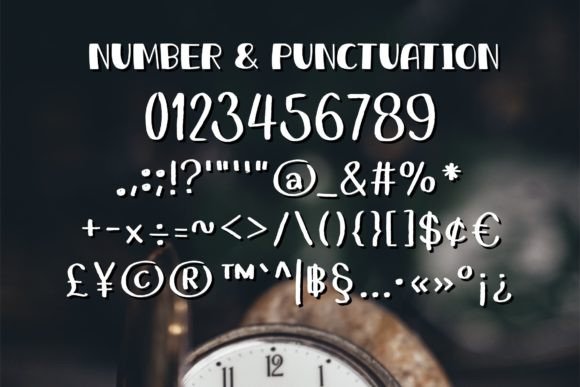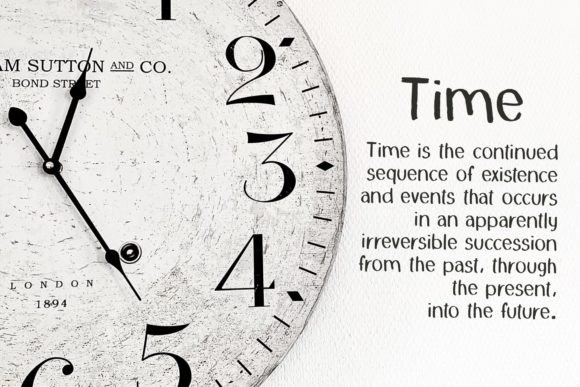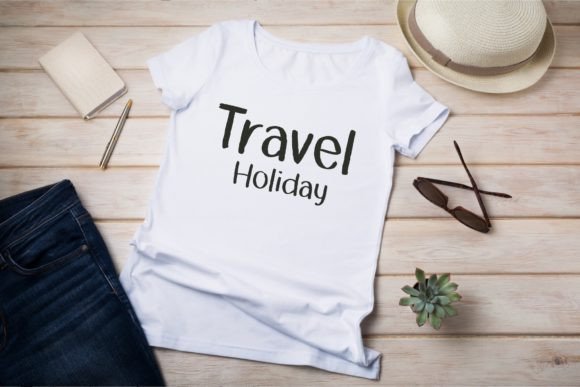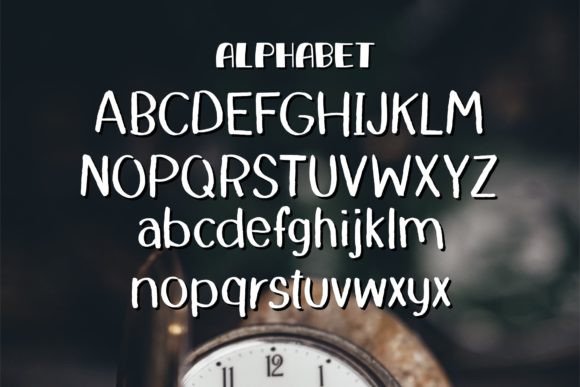
When Creativity Strikes
Have you ever been in the middle of a project and suddenly had an idea pop into your head that you just can’t wait to bring to life? The excitement of brainstorming and the thrill of creation can be exhilarating. It’s moments like these that make us remember why we love being designers.
Whether you’re working on a new logo, branding, or crafting a social media campaign, the right font can make all the difference. That’s where Buy Some Time Font comes in – a charming, handwritten font that’s perfect for adding a touch of whimsy to your designs. With its casual, fun feel, it’s the ideal choice for designers looking to add a little personality to their projects.
Key Features of “Buy Some Time Font”
- Unique Characteristics: The font features a unique blend of modern and vintage elements, with clean lines, geometric shapes, and subtle texture, making it perfect for creating a distinctive visual identity.
Buy Some Time Font Review
I’ve had the chance to work with the Buy Some Time font, and I must say it’s a unique and interesting addition to any design project. ✨ The font’s irregular shapes and letterforms give it a quirky, hand-drawn feel that can add a touch of personality to your work.
Some of the things that work well with Buy Some Time include:
- ✨ Unconventional letterforms that add visual interest
- ✨ Good for creating a sense of movement and energy
- ✨ Can be used to create a sense of nostalgia or retro feel
- ⚠️ May not be suitable for large blocks of text due to its irregular shape and size
- ⚠️ Can be difficult to read at small font sizes
- ⚠️ May not be compatible with all font rendering systems
Overall, I think Buy Some Time font is a great choice for designers looking to add some personality and flair to their work. While it may have some limitations, it’s a great option for titles, headings, and other short text elements where its unique feel can really shine through.
Tips for Getting the Most Out of “Buy Some Time Font”
To get the most out of “Buy Some Time Font”, use it to create eye-catching headlines and titles. Pair it with bold colors and simple backgrounds to create a striking visual effect.
“Buy Some Time Font” is commonly used in:
- Marketing materials, such as brochures and flyers.
- Social media posts and ads.
- Web design and development projects.
Alternatives to “Buy Some Time Font” for Designers
Playfair Display is an elegant, high-end serif font ideal for creating luxurious and sophisticated designs. It’s perfect for wedding invitations, luxury branding, and high-end magazines.
Compared to Buy Some Time Font, Playfair Display has a more refined and classic feel, whereas Buy Some Time Font has a more modern and distressed look.
Great Vibes is a beautiful, modern script font suitable for creative and artistic projects. It’s great for designing logos, posters, and social media graphics.
Unlike Buy Some Time Font, Great Vibes has a more fluid and handwritten feel, making it perfect for projects that require a personal touch.
Pacifico is a modern script font with a relaxed and casual feel. It’s ideal for designing beach-themed projects, food menus, and outdoor advertising.
Pacifico is more laid-back and casual compared to Buy Some Time Font, which has a more distressed and vintage look.